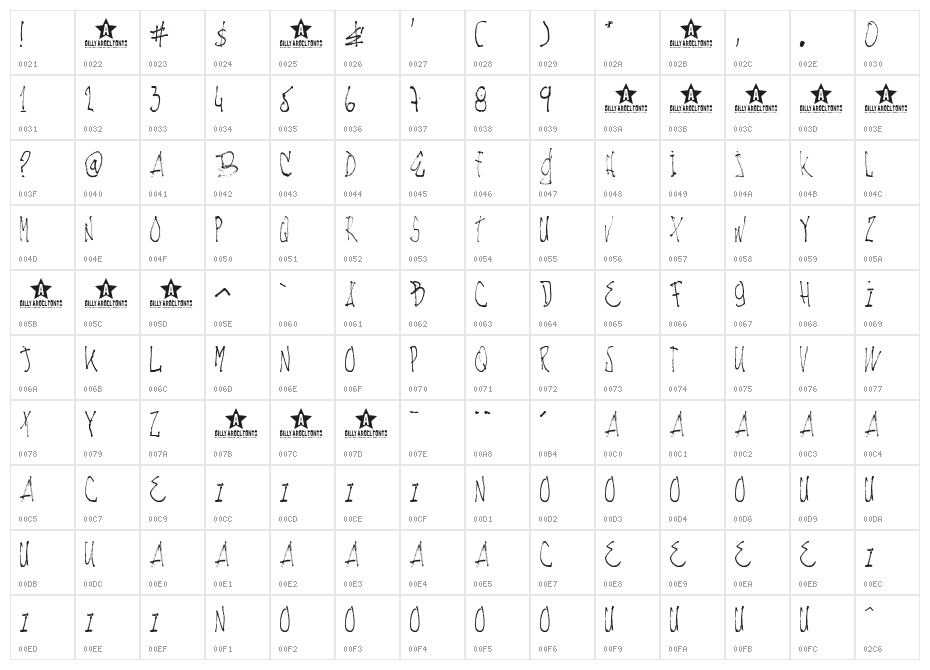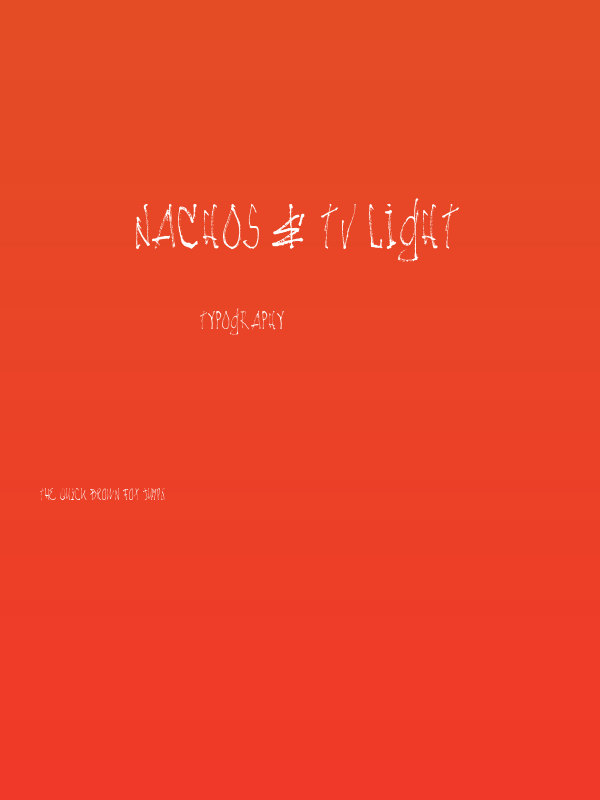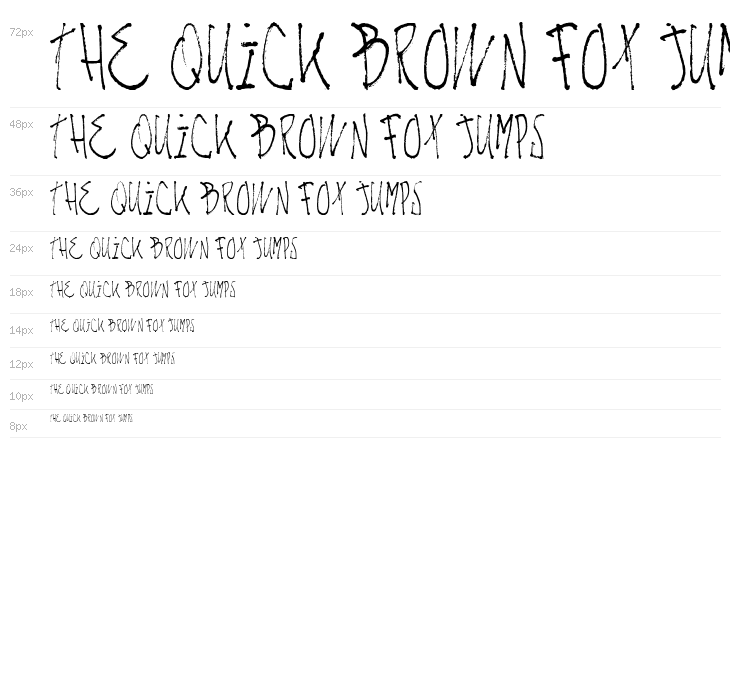
NACHOS & TV Light Font
NACHOS & TV Light Description
This font features a distinctive, hand-drawn style with a rough, textured appearance. The characters have an irregular, organic form, giving them a unique and artistic look. The uppercase and lowercase letters maintain a consistent height, while the numbers and special characters follow the same textured, sketch-like design. The strokes vary in thickness, adding to the font's dynamic and expressive nature. This style is reminiscent of graffiti or street art, making it stand out with its bold and unconventional aesthetic.
Overall StyleArtistic, Graffiti
Use CaseHeadlines, Posters, Artistic designs
Proposed ProjectsIdeal for projects that require a creative and edgy look, such as street art posters, album covers, or urban-themed branding.